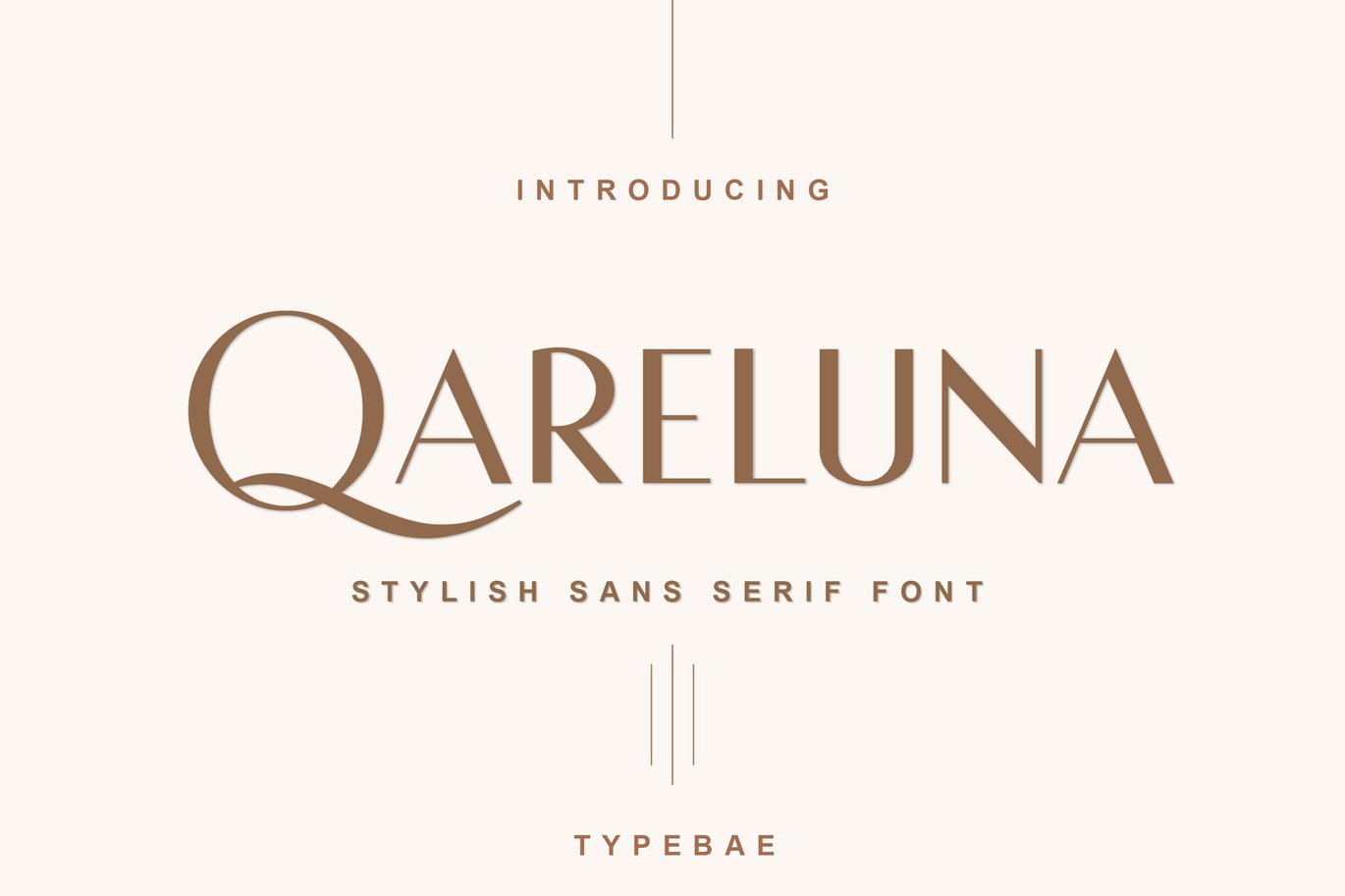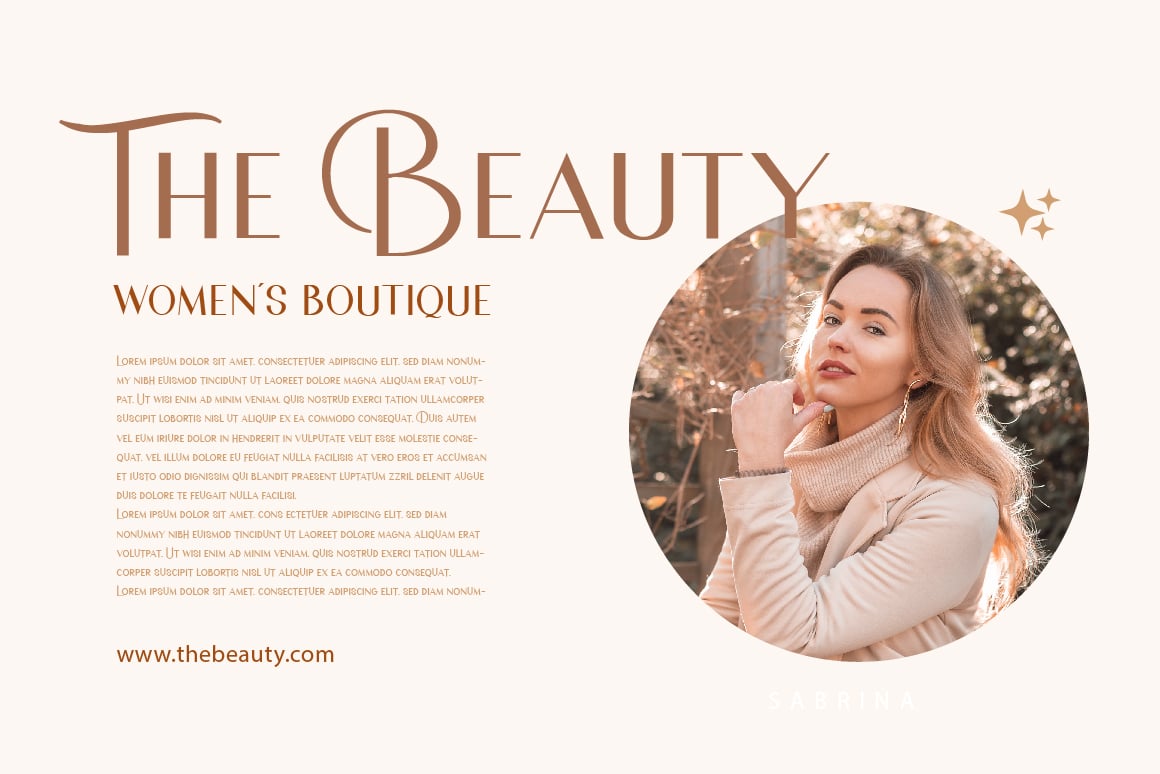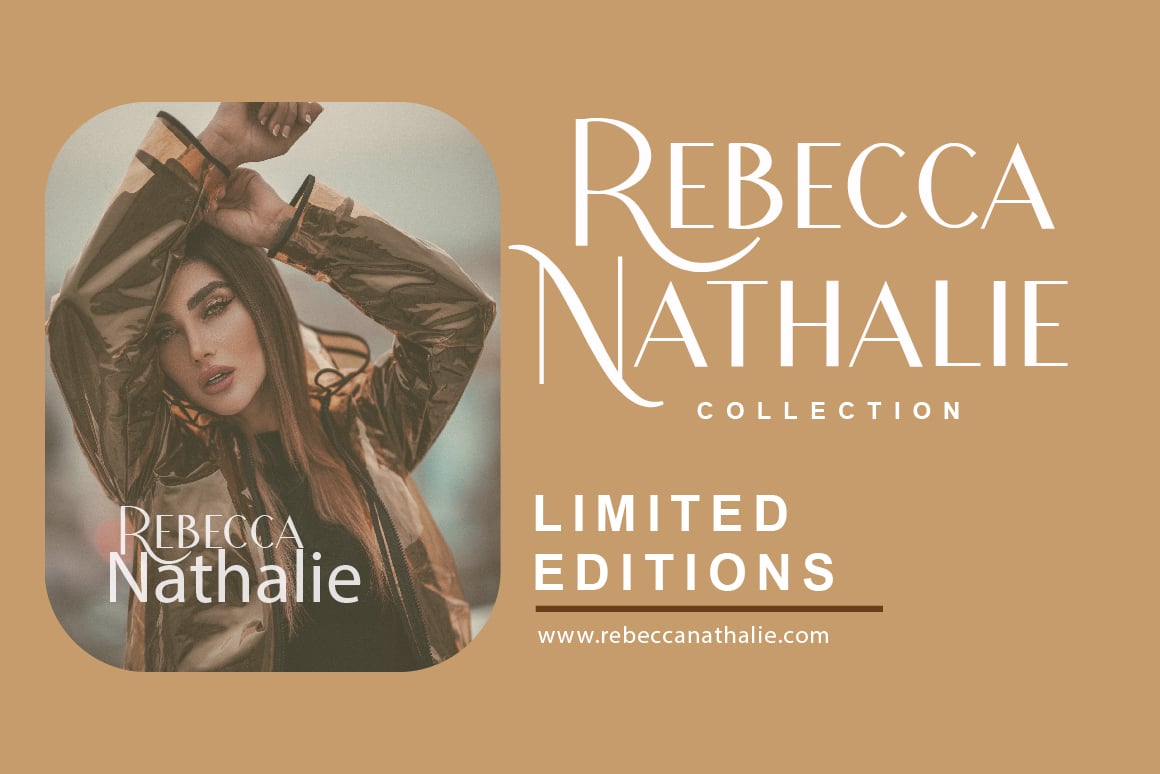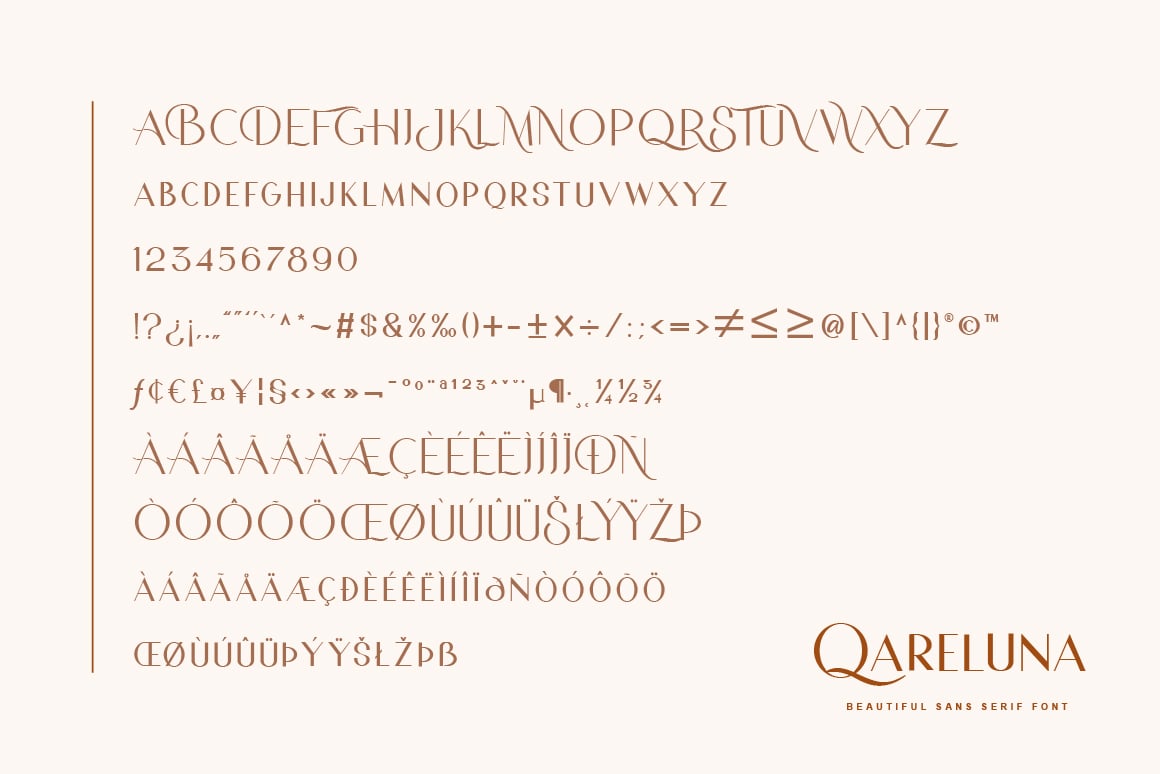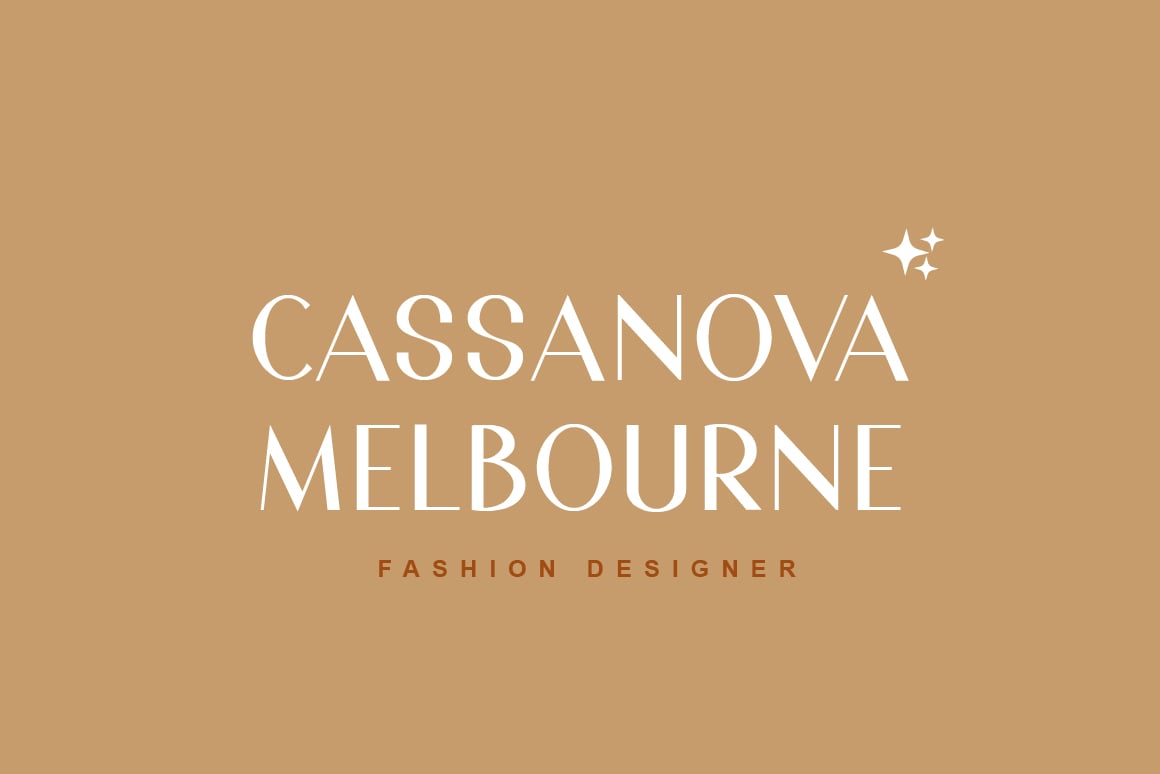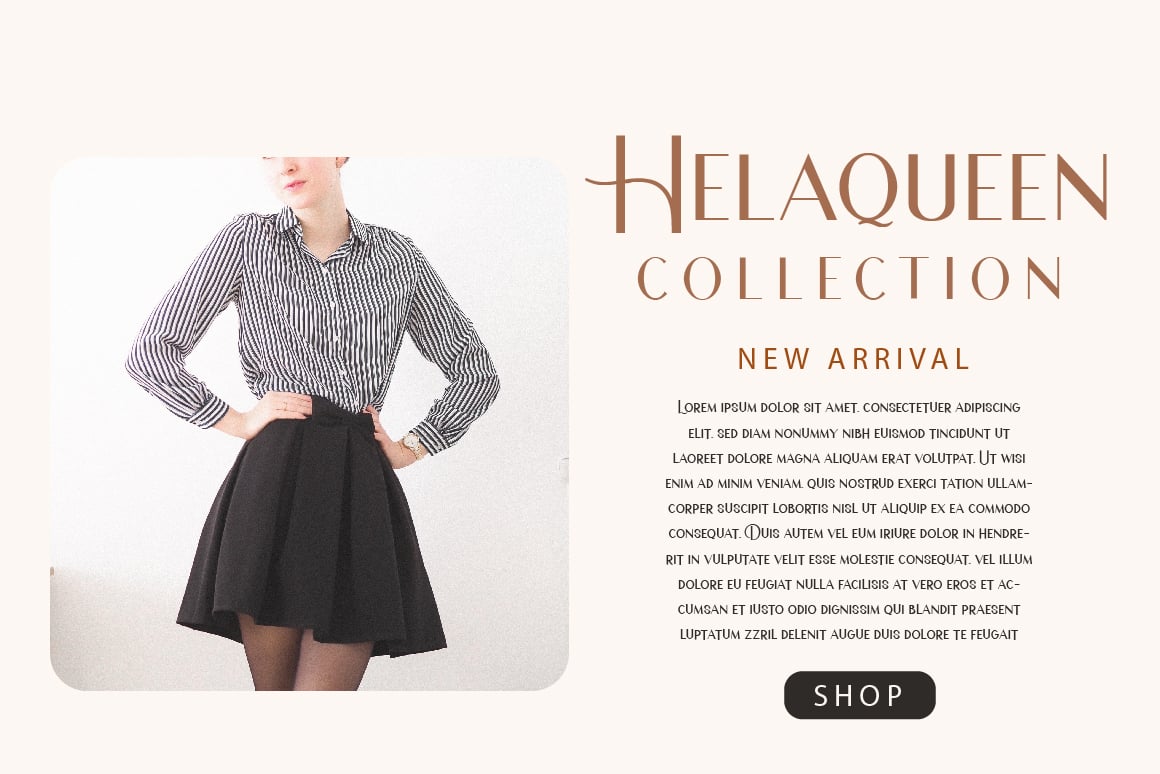
Qareluna Stylish Sans Serif Font
Qareluna is a beautiful and stylish sans serif font. Suitable to a wide variety of designs due to its neat and simple style, this font has the potential to become your favorite go-to font, no matter the occasion!
- Qareluna regular & italic
- Standard alphabet and punctuation
- Ligature feature